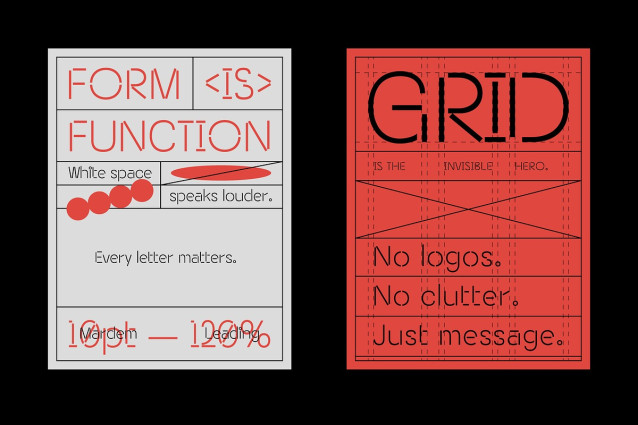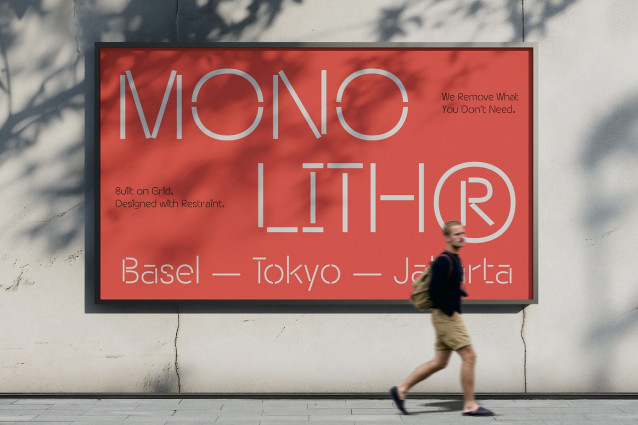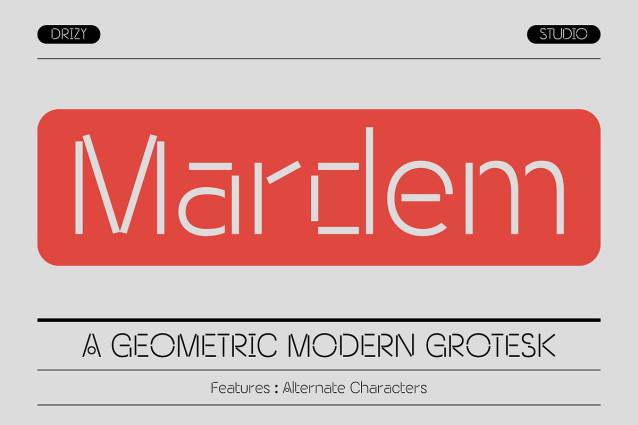
Mardem Geometric Font
Mardem Geometric Font –  Modern Grotesk Font, a geometric modern grotesk font reimagined through a bold stencil lens. Designed with clean cuts, sharp curves, and modular precision, Mardem blends industrial strength with contemporary style. Its Futuristic Stencil aesthetic is perfect for branding, tech interfaces, sci-fi titles, or any creative project that dares to look ahead. Whether you’re crafting a visionary logo or building a sleek poster, Mardem delivers a statement that’s both sophisticated and cutting-edge.